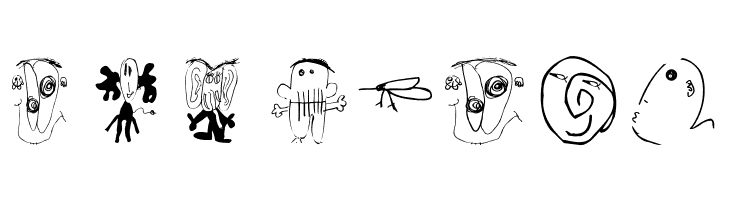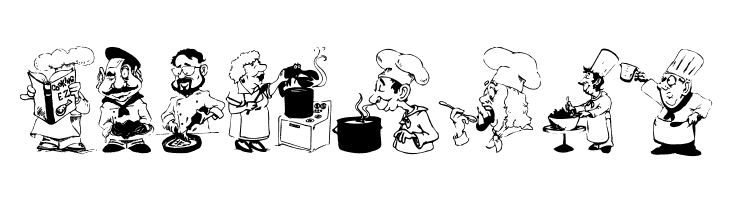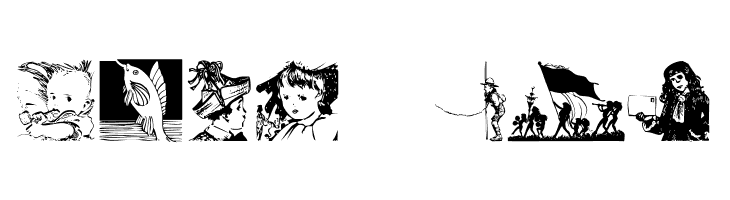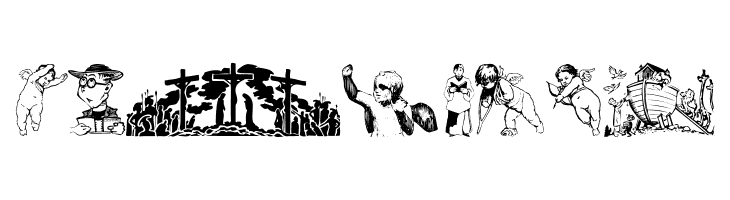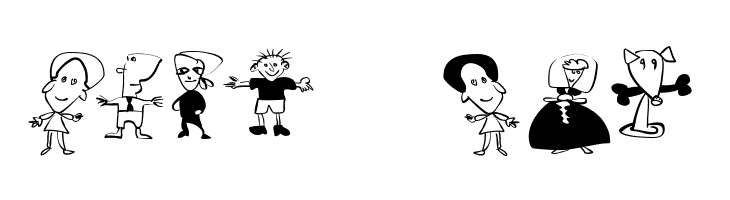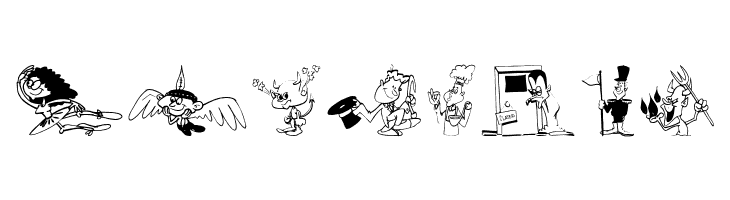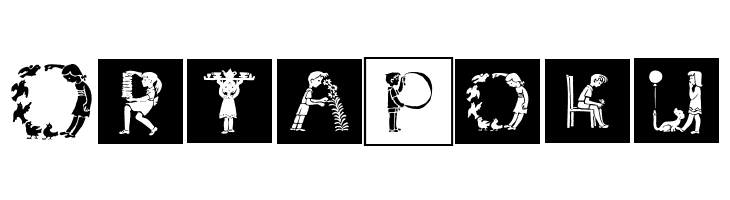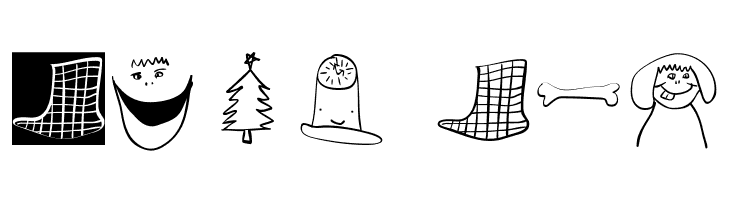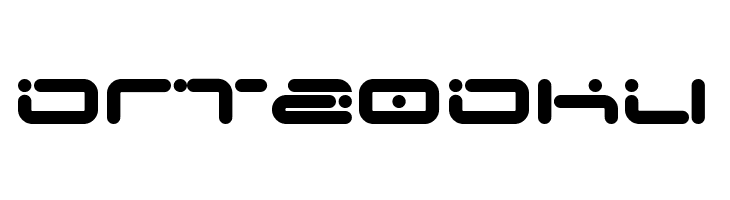
• CharactersB
Cartoonish, hand-drawn font with each character depicted as a unique illustration.
• Cherubians
Ornate cherub and religious-themed dingbat illustrations.
• Chicory
• ChiefCook
Cartoon chef-themed decorative font with playful, hand-drawn illustrations.
• Children
Illustrative, playful font with child-themed scenes for each character.
• ChildrenDingbats
A playful, hand-drawn dingbat set featuring childlike sketches of faces, animals, and objects.
• ChildrensAlphabet
A playful font with letters formed by illustrations of children in various activities.
• ChildrensAlphabetInvers
A playful font with letters formed by illustrations of children in various activities.
• ChildrenSketchings
A whimsical, hand-drawn sketch font inspired by children's drawings.
• ChildrensWorld
A playful collection of child-like doodles and illustrations.